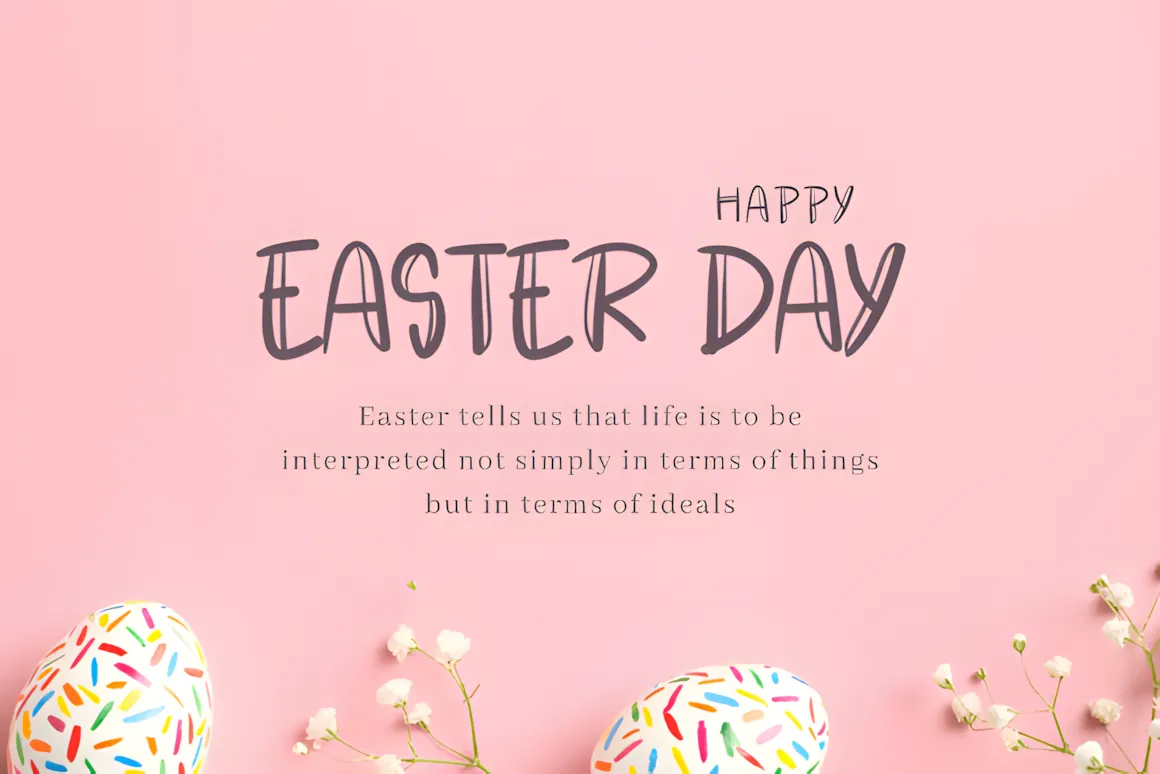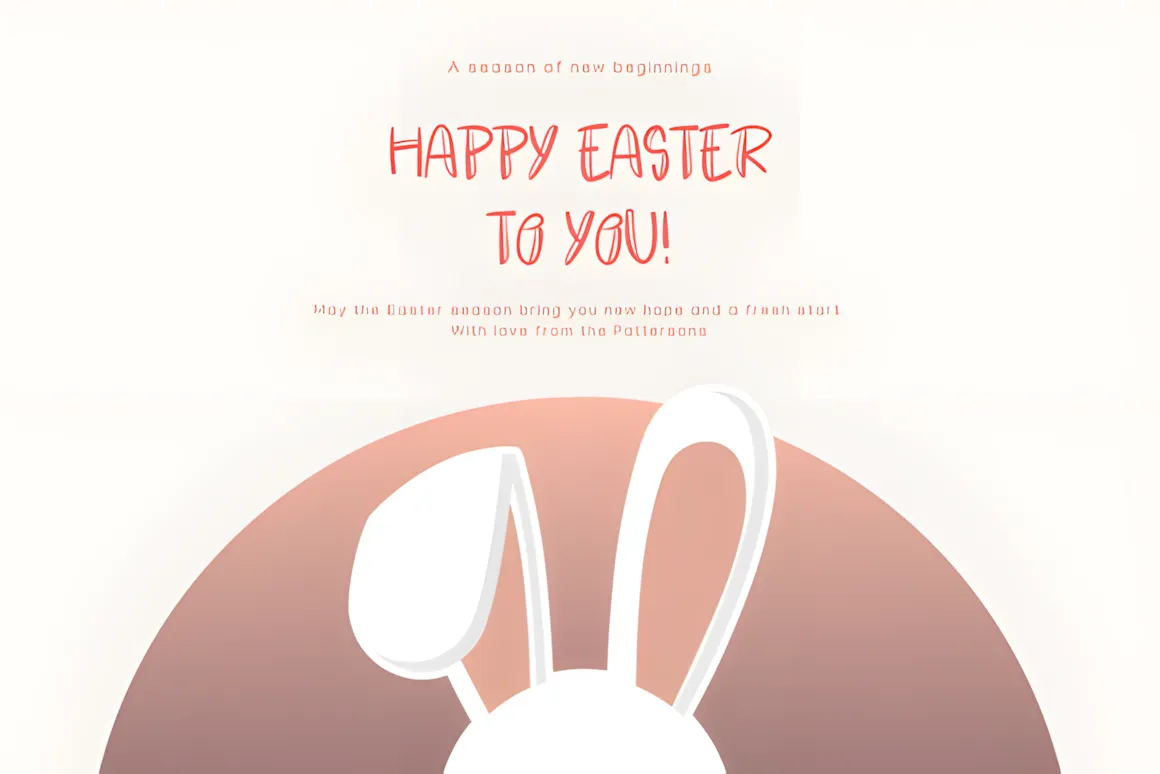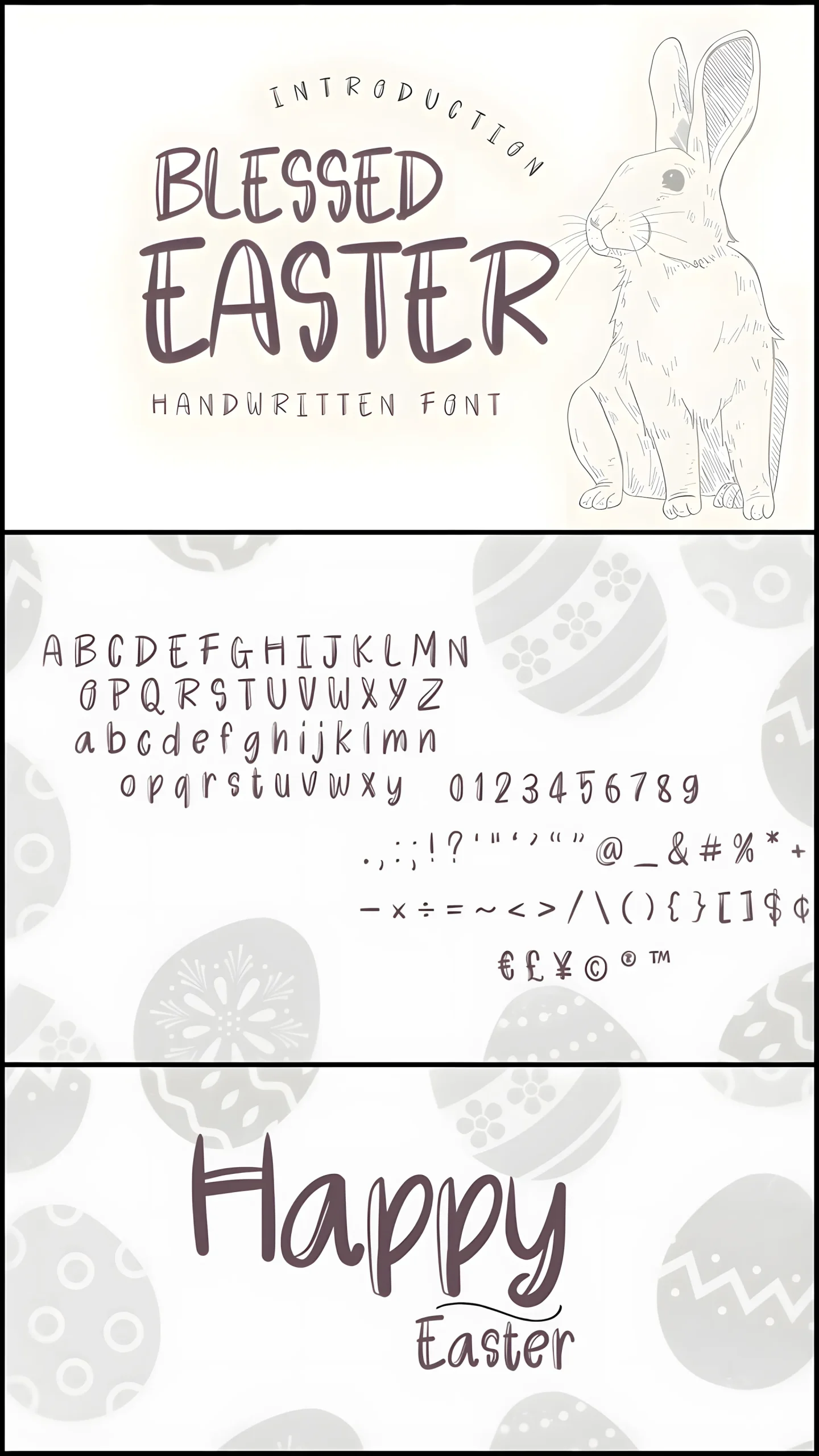
Typography plays a powerful role in shaping the mood of a design. From greeting cards to event posters, the right typeface can make a season feel warm, uplifting, and visually engaging. The Blessed Easter Font is a decorative display typeface crafted to bring a graceful and festive tone to creative projects, especially those celebrating spring and Easter.
This font combines elegant curves with decorative details, making it perfect for holiday invitations, seasonal branding, posters, packaging, and social media graphics. Whether used in print or digital design, Blessed Easter Font offers a joyful yet refined visual impact.
What Is Blessed Easter Font?
Blessed Easter Font is a decorative display typeface designed with celebration in mind. Its letterforms feature smooth strokes, artistic flair, and a hint of classic calligraphy, providing a blend of contemporary design and traditional warmth.
Unlike basic sans-serif or serif fonts, this decorative typeface communicates personality and emotion. It’s most effective in short text elements where expression and style matter most, such as headlines, titles, event names, and greeting messages.
With its festive aesthetic and graceful form, Blessed Easter Font brings a sense of joy and occasion to any design.
Design Style and Visual Characteristics
The visual style of Blessed Easter Font emphasizes elegance and celebration. Its letterforms are:
- Soft yet expressive, with decorative flourishes that feel warm and welcoming
- Balanced and readable, even with ornamental design
- Suitable for both formal and playful design contexts
The overall look of this decorative font feels refined and artistic, making it a strong choice for seasonal projects, holiday cards, wedding stationery with a seasonal twist, and premium festive branding.
Whether paired with pastel colors typical of spring or bold design accents, Blessed Easter Font enhances the visual personality of headlines and titles.
Best Uses for Blessed Easter Font
Holiday Invitations and Greeting Cards
When creating Easter invitations or seasonal greeting cards, typography sets the emotional tone. Blessed Easter Font adds warmth and a personal touch to invitations for family gatherings, church events, brunch celebrations, or community activities.
The elegant curves and decorative style help convey sincerity and festive spirit in holiday messages.
Event Posters and Promotional Materials
For event marketing, typography needs to be both eye-catching and expressive. Blessed Easter Font works well on:
- Event posters
- Promotional flyers
- Banners
- Print advertisements
It helps headlines command attention while adding seasonal charm, making it ideal for community events, Easter egg hunts, church festivals, spring fairs, and charity events.
Social Media Graphics and Digital Content
In digital design, engaging typography is key to grabbing attention on crowded social feeds. Blessed Easter Font performs beautifully on:
- Instagram and Facebook graphics
- Digital invitations
- Email banners
- Website headers
Its elegant decorative style enhances seasonal messaging and encourages engagement with holiday content.
Packaging and Merchandise
Blessed Easter Font also shines in packaging and product design. Its refined decorative appeal adds a festive look to:
- Gift boxes
- Candy wrappers
- Seasonal product labels
- Branded merchandise
Designs that use this font feel both joyful and visually pleasing, especially when combined with spring-related illustrations such as flowers, eggs, bunnies, and pastel accents.
Advantages of Using Blessed Easter Font
- Elegant decorative style perfect for holiday design
- Versatile across print and digital formats
- Ideal for invitations, posters, social graphics, and packaging
- Expressive letterforms that enhance seasonal branding
- Works well with both formal and playful design themes
These qualities make Blessed Easter Font a go-to choice for designers looking to create seasonal visuals with personality and charm.
Blessed Easter Font is a decorative typeface that combines elegance, festive charm, and expressive design. Its refined letterforms make it well suited for holiday invitations, event posters, social media content, seasonal branding, and packaging design. Whether used in print or digital projects, this font delivers a warm and celebratory aesthetic that resonates with audiences.
For designers and creatives seeking a decorative font that captures both elegance and joy in seasonal design, Blessed Easter Font offers versatility and visual appeal.